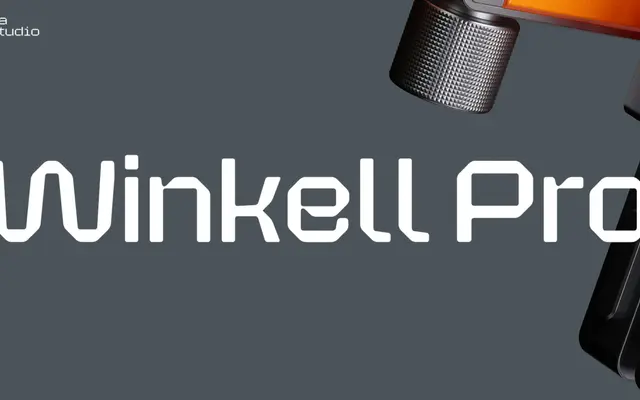
Winkell Pro
A grotesque sans-serif spanning five widths from standard to ultra-expanded, each available in five weights with matching italics.
Fifty styles cover five weights from Light to Black across standard, semi-expanded, extra-expanded and ultra-expanded widths, all with accompanying italics. The glyph set reaches across Latin Extended-A and -B with broad diacritic coverage, and OpenType features include discretionary ligatures, stylistic alternates and standard ligature sets. The width range makes it a practical choice for layouts demanding significant typographic flexibility across both tight and wide measures.
The page shows no explicit classification, but the letterforms and style listing with italics, multiple widths and weights point to a contemporary grotesque sans-serif with extended width variation.